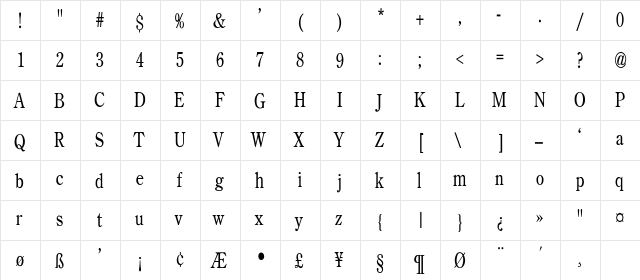
BackRoad Modern Conden Regular
Design Context for BackRoad Modern Conden Typeface
BackRoad Modern Conden offers clean, dependable letterforms without strong stylistic allegiance, making it a practical choice for designers who need flexibility. The condensed width makes it efficient for tight spaces without sacrificing legibility.
Pro Tip: Pair BackRoad Modern Conden with a font of contrasting weight or personality to build a more expressive typographic hierarchy.